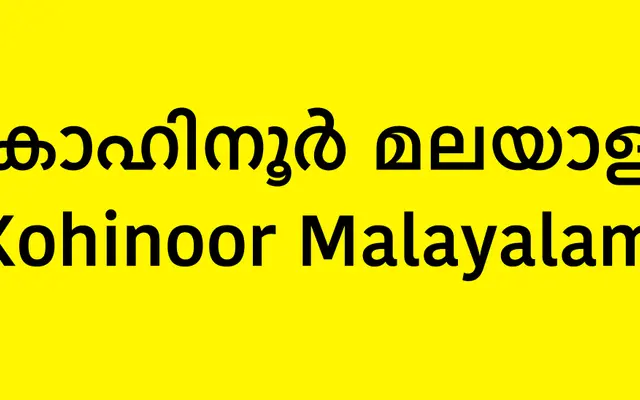
Kohinoor Malayalam
A five-weight sans-serif for the Malayalam script, part of ITF's extensive Kohinoor multi-script family spanning Latin, Devanagari, Arabic and numerous Indic scripts.
Part of Indian Type Foundry's ambitious Kohinoor project, this Malayalam companion covers five weights from Light to Bold without italics, following the conventions of the script. It sits alongside siblings for Kannada, Telugu, Bangla, Gujarati, Gurmukhi, Devanagari, Tamil and Arabic, making it a practical choice for multilingual South Asian publishing and interface work. The weight range gives sufficient flexibility for body text and headline use within Malayalam-language contexts.
Kohinoor Malayalam is a humanist sans-serif designed for the Malayalam script, part of a large multi-script Kohinoor family spanning Indian and Arabic writing systems. The letterforms follow the organic curves of the Malayalam script while maintaining consistency with the broader Kohinoor family aesthetic.